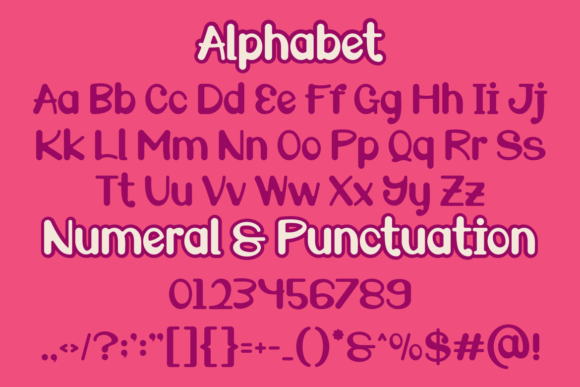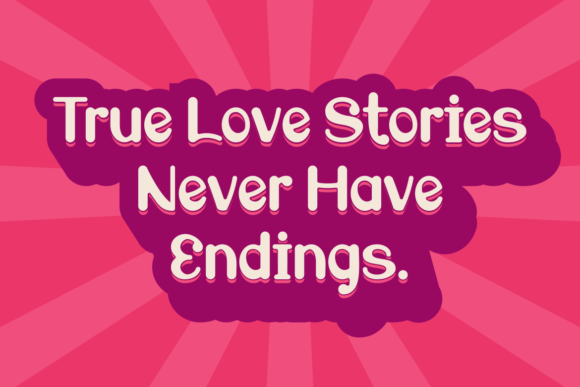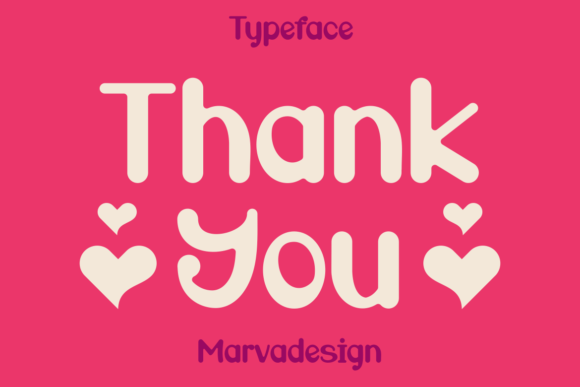
Introducing Gobble Font: A Bold and Authentic Display Font for Your Branding Projects
In the world of typography, a font can make or break a design. When it comes to creating a lasting impression, a bold and authentic display font is essential. This is where Gobble Font comes in – a stunning typeface that is perfect for any branding project. Whether you’re looking to create a logo, design a t-shirt, or develop a product, Gobble Font is the ideal choice.
What Makes Gobble Font Stand Out?
Gobble Font is a bold and authentic display font that is designed to make a statement. Its unique and eye-catching design makes it perfect for headlines, titles, and short text passages. The font’s bold and confident appearance is sure to grab attention and leave a lasting impression on your audience.
One of the key features of Gobble Font is its versatility. The font is suitable for a wide range of contexts, from branding and advertising to packaging and merchandise. Whether you’re working on a logo, business card, or product design, Gobble Font is the perfect choice.
Key Features of Gobble Font
- Bold and Authentic Design: Gobble Font features a bold and authentic design that is perfect for making a statement.
- Versatile: The font is suitable for a wide range of contexts, from branding and advertising to packaging and merchandise.
- Easy to Read: Despite its bold design, Gobble Font is easy to read, even at small sizes.
- High-Quality: The font is designed to high-quality standards, ensuring that it looks great on any device or medium.
Why Choose Gobble Font?
There are many reasons why designers and crafters should choose Gobble Font for their branding projects. Here are just a few:
- Unique Design: Gobble Font features a unique and eye-catching design that is sure to stand out.
- Time-Saving: The font is easy to use and customize, saving you time and effort.
- Highly Versatile: The font can be used for a wide range of projects, from logos and business cards to product designs and merchandise.
How to Use Gobble Font
Using Gobble Font is easy. Here are a few tips to get you started:
- Pair it with Other Fonts: Gobble Font looks great when paired with other fonts. Try pairing it with a sans-serif font for a bold and modern look.
- Use it for Headlines: Gobble Font is perfect for headlines and titles. Use it to grab attention and make a statement.
- Customize it: Gobble Font can be customized to fit your needs. Try changing the color or adding effects to make it stand out.
In conclusion, Gobble Font is a bold and authentic display font that is perfect for any branding project. Its unique and eye-catching design makes it perfect for headlines, titles, and short text passages. With its versatility, ease of use, and high-quality design, Gobble Font is an excellent choice for designers and crafters. So why wait? Download Gobble Font today and take your branding projects to the next level!
Whether you’re a seasoned designer or a crafty DIY enthusiast, Gobble Font is sure to become a staple in your design toolkit. So go ahead, get creative, and see what amazing designs you can come up with using Gobble Font!